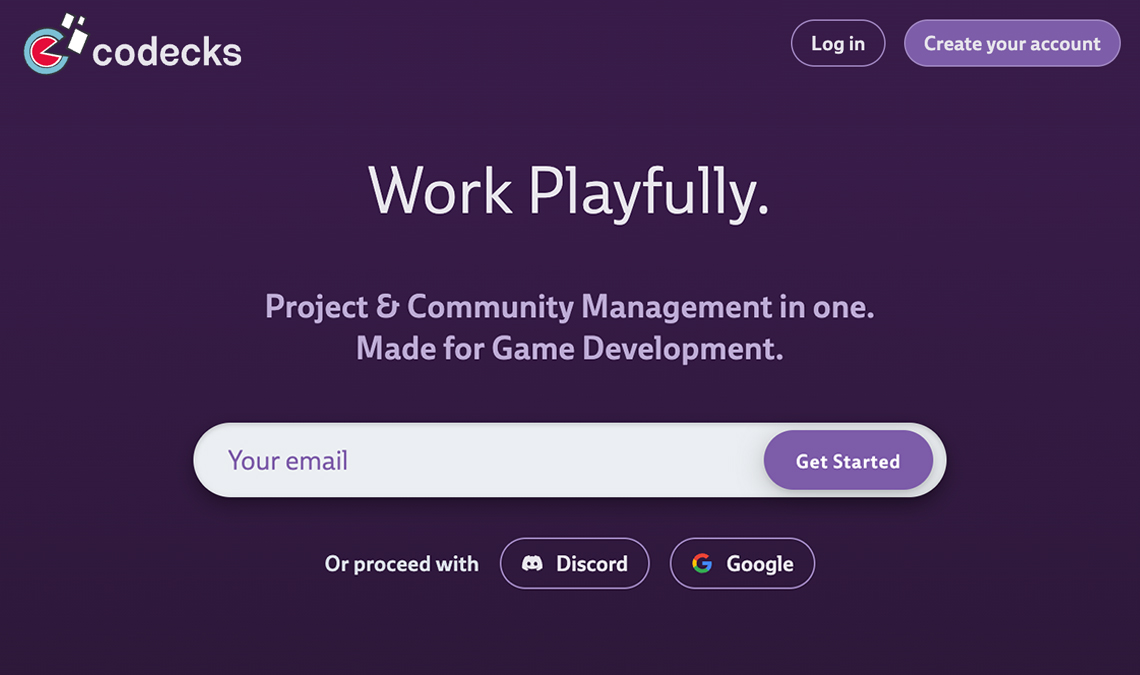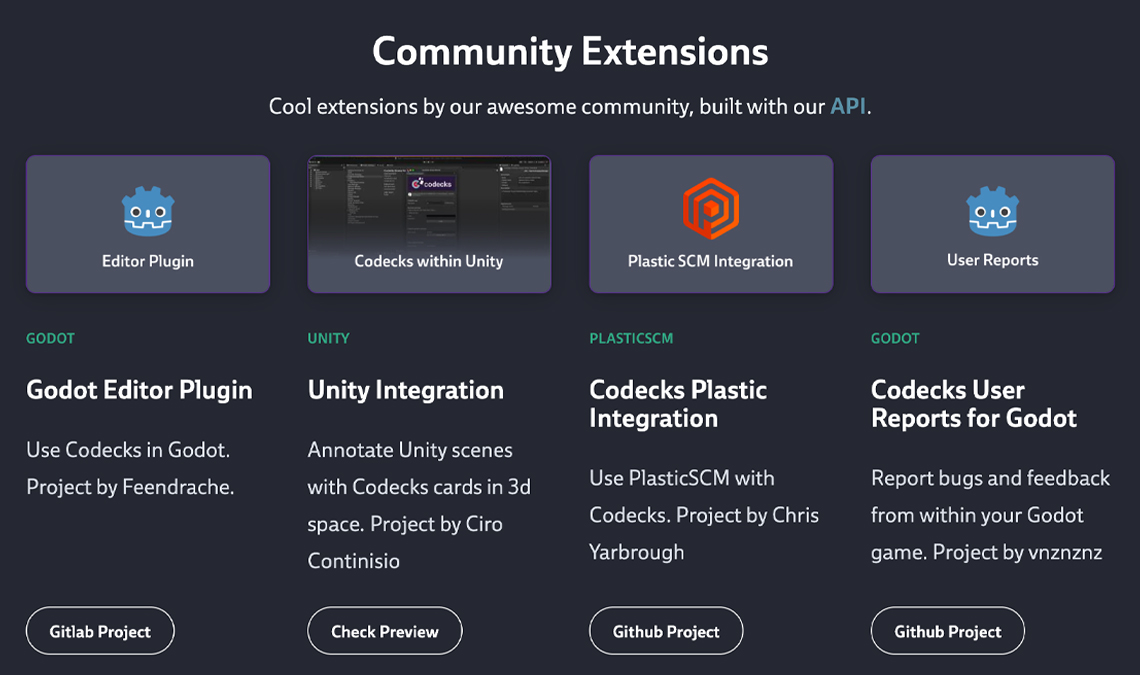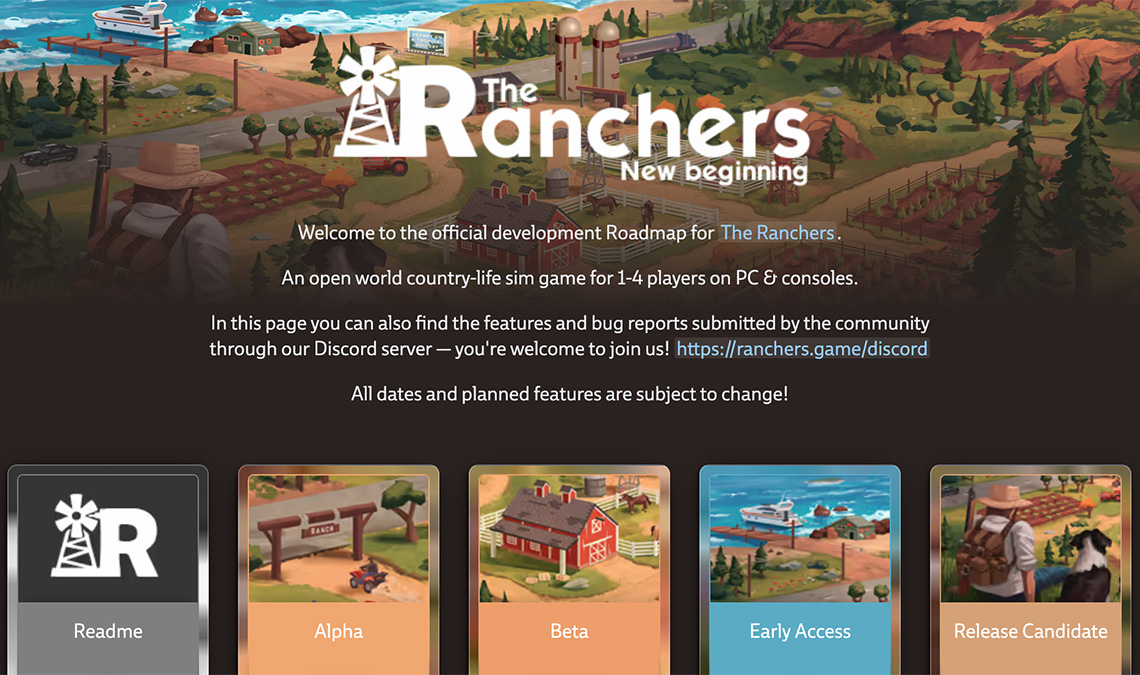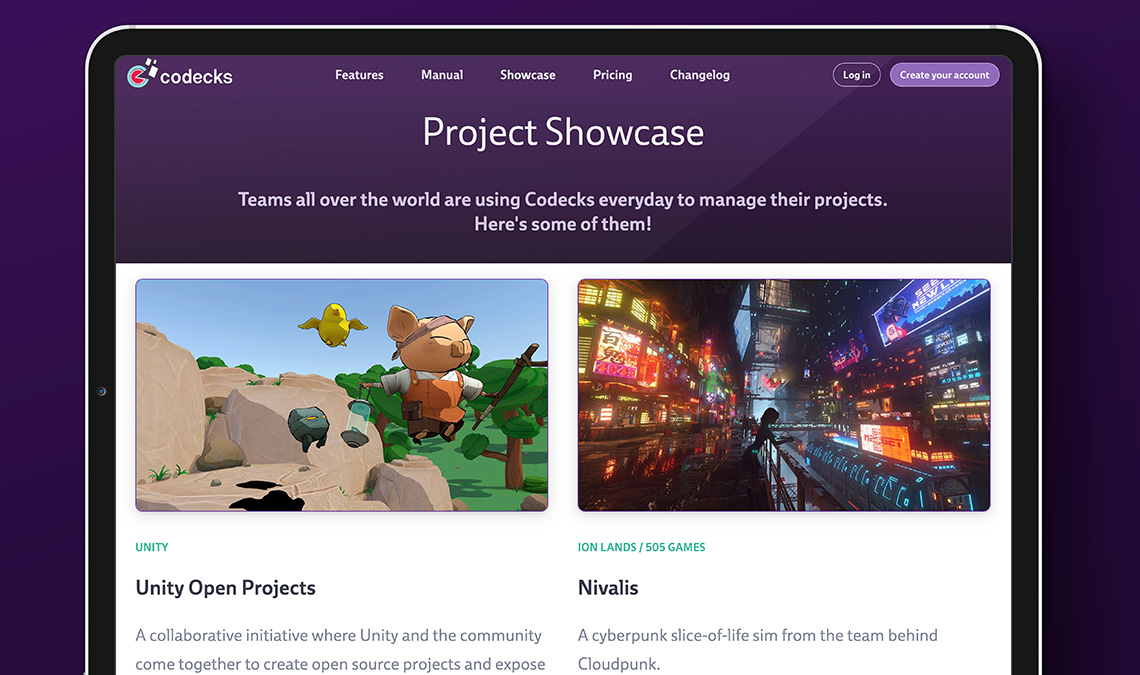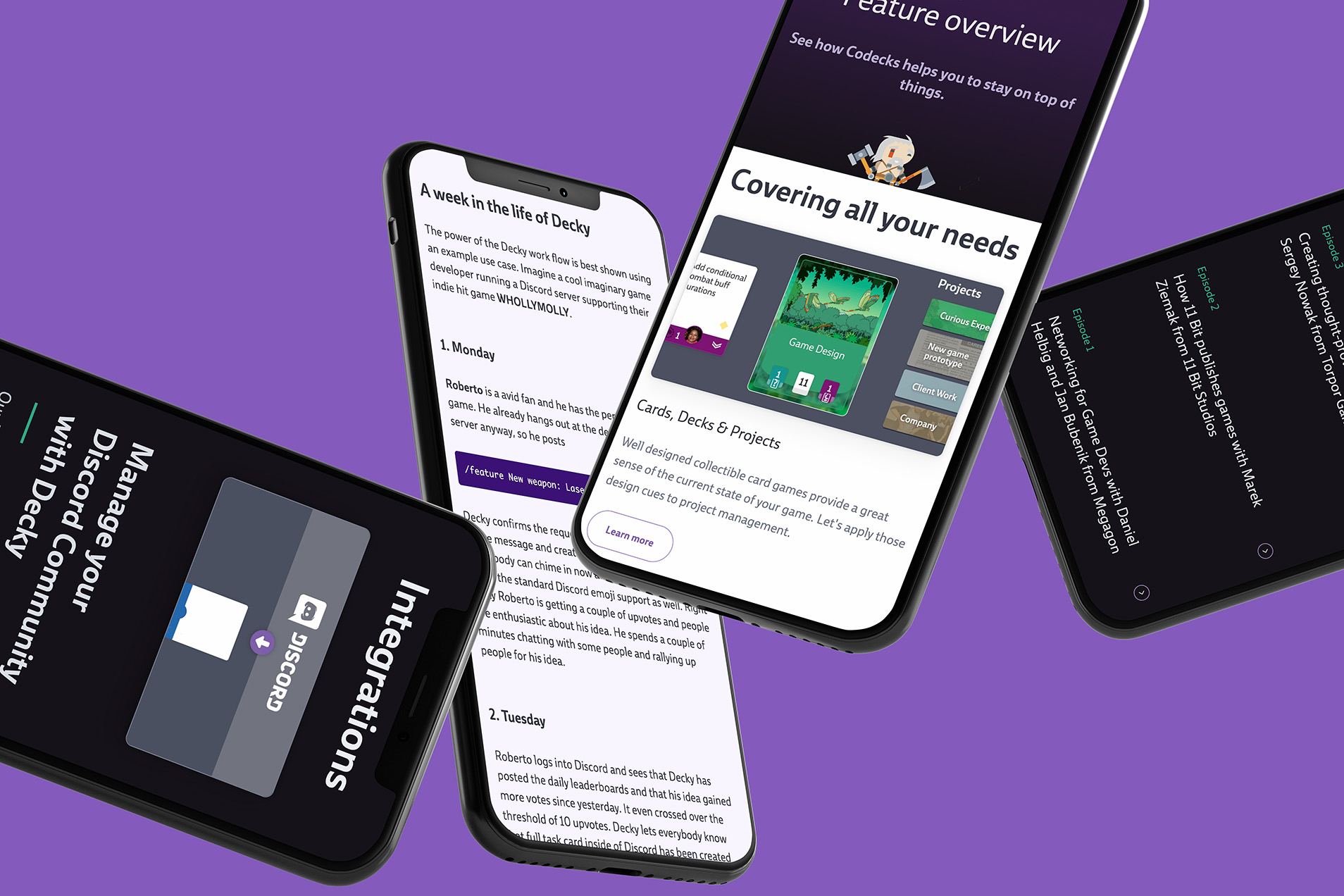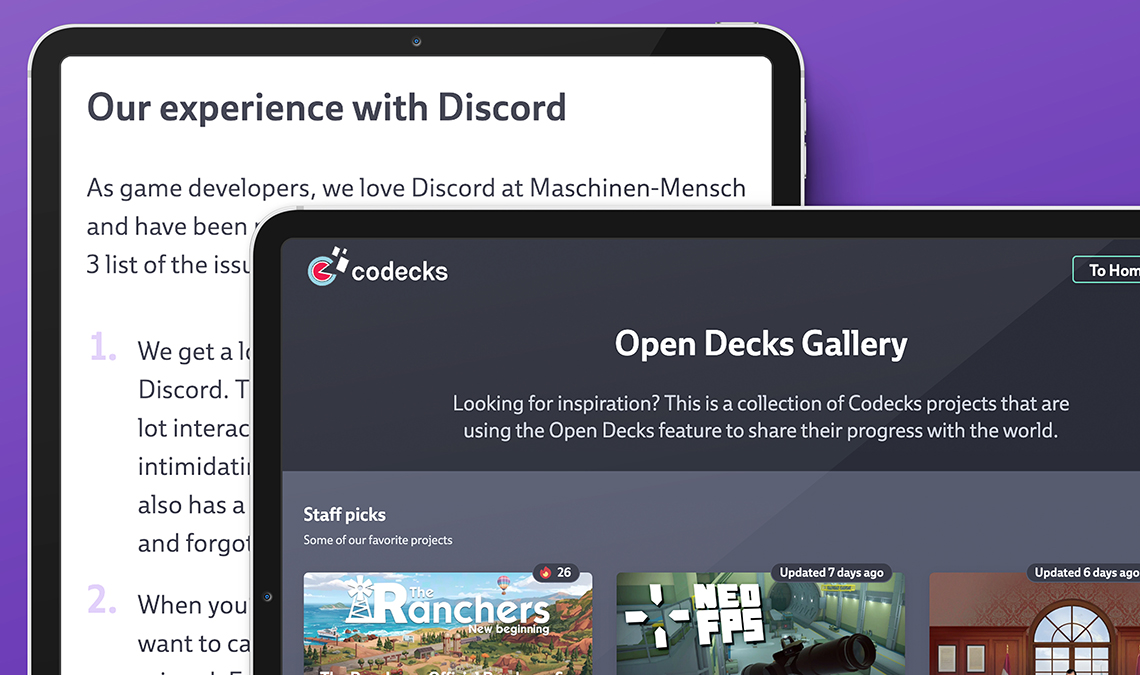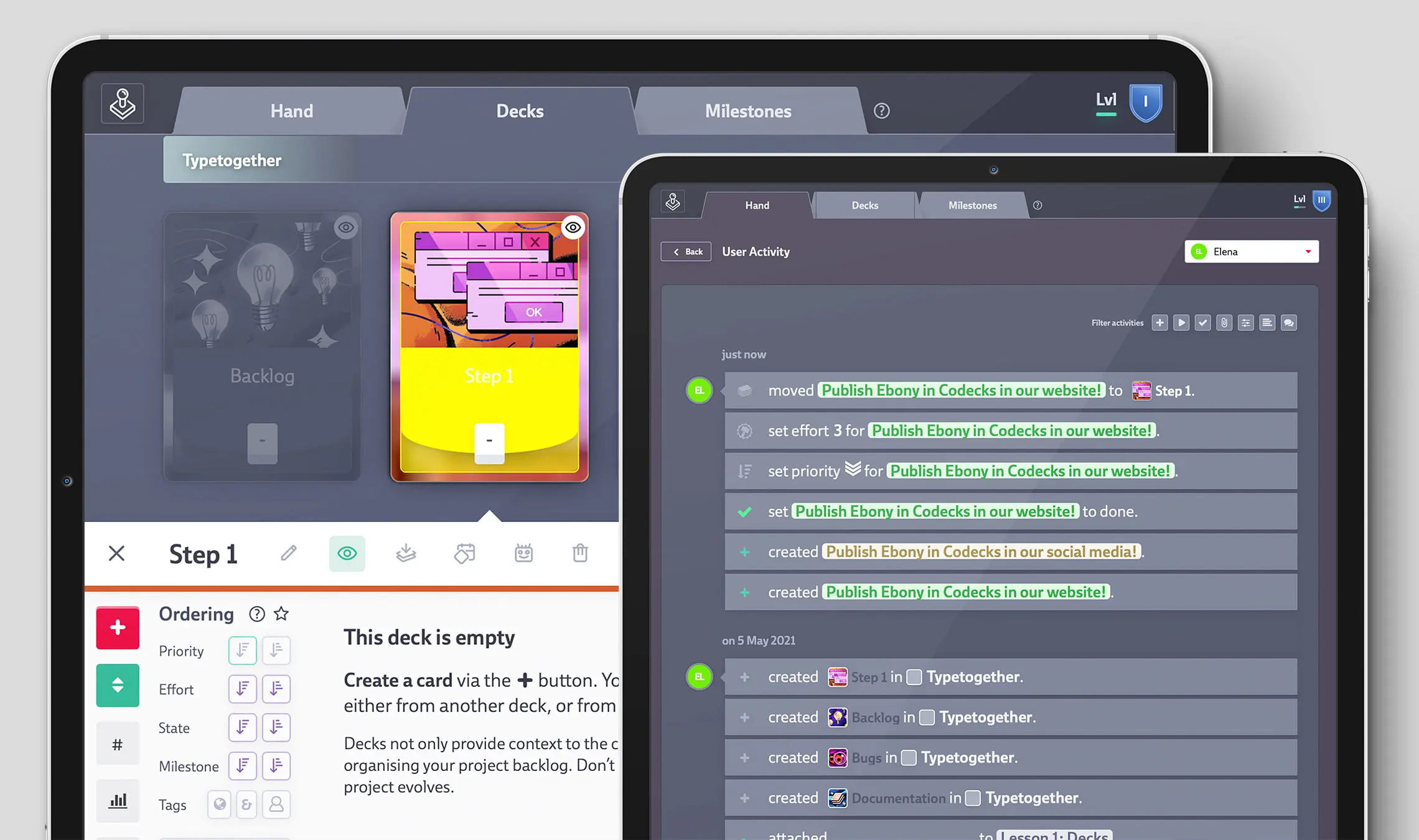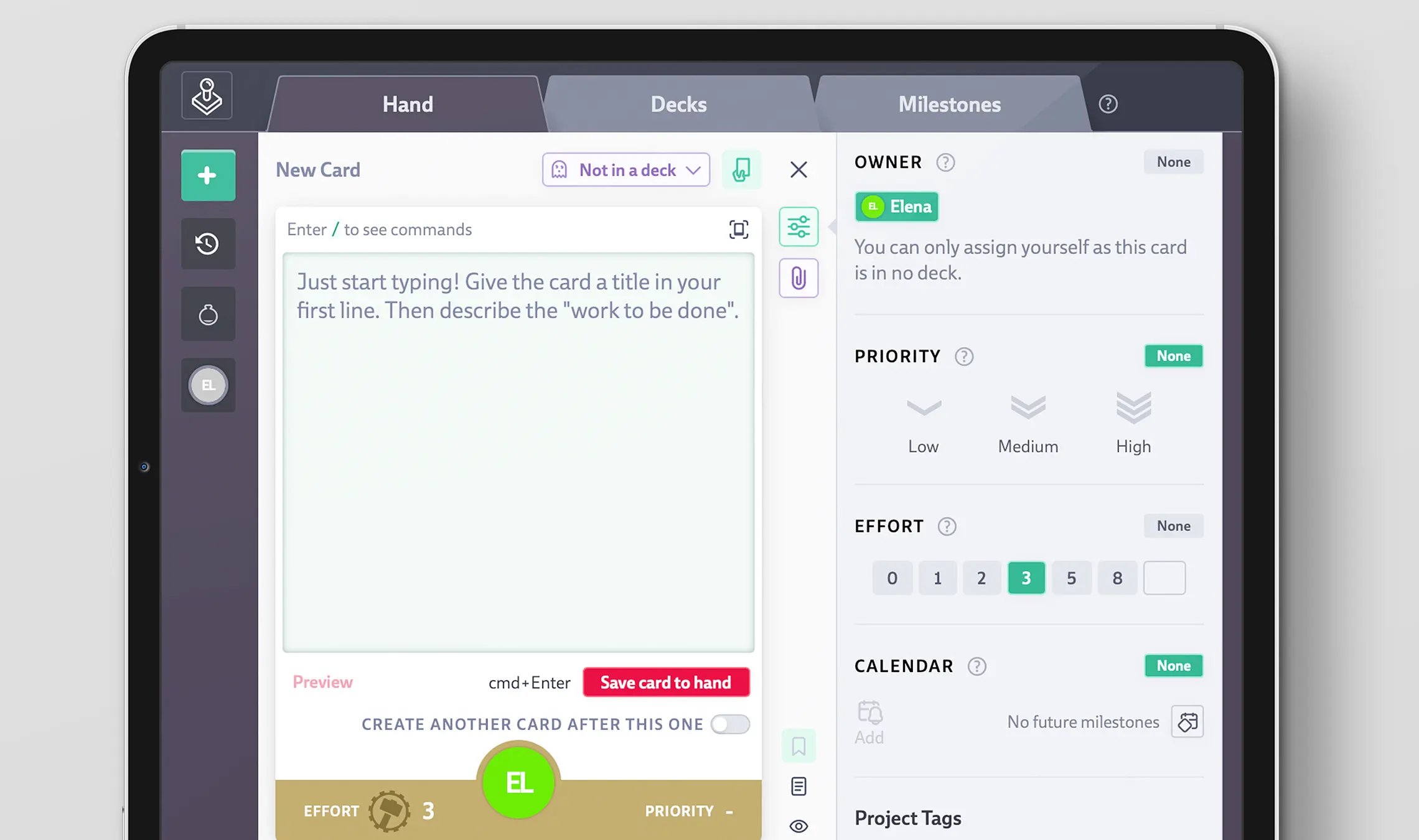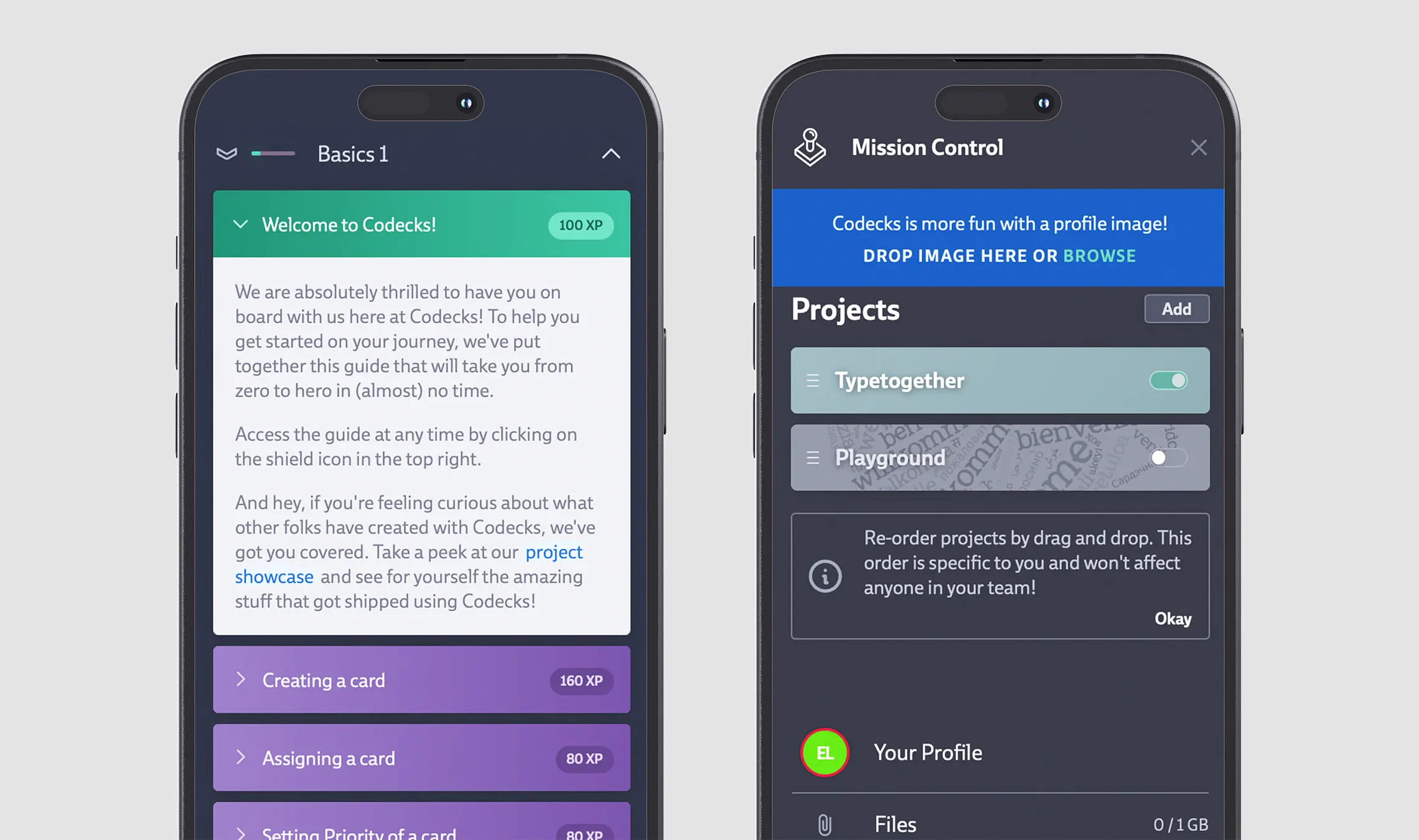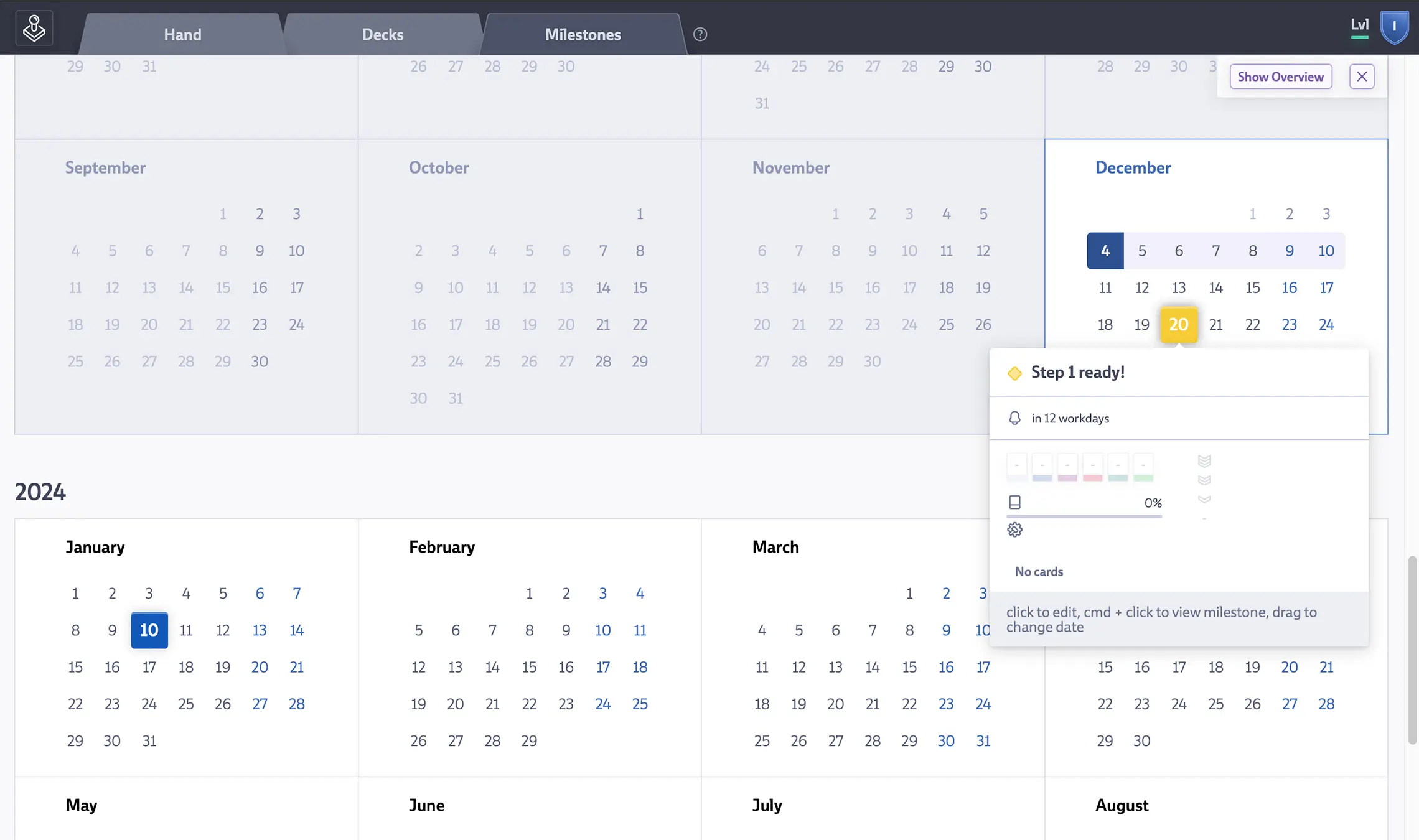
Ebony wins the Codecks game
Ebony in use in the Codecks project and community management platform.
Codecks is a project & community management platform focused on game development. Codecks believes that any task planning tool gets more useful if everybody on the team is using it, so they’ve prioritised what they call ‘joyful interaction’ as the core of Codecks. To that end, they’ve chosen the modern and attractive Ebony family as the comoany’s voice, employing it in each element of the platform: documents, chats, calendars, menus, titles, text, all of it.
Every word, numeral, dropdown, and dialog — everything — is styled with Ebony’s clear and undeniable voice. The serifs on ‘J, l’ hint at developer typefaces without fully giving into that aesthetic, and the open characters and terminals that point to the next glyph come across clearly on the screen.
A multi-functional type family, Ebony remains true to TypeTogether’s focus on stylish typographic answers for the complex needs of digital and printed works. Ebony provides great performance in branding and advertising with its dark weights and taut, powerful curves. In short, Ebony is a daringly bold sans serif supporting several hundred Latin-based languages, and now with support for Vietnamese.